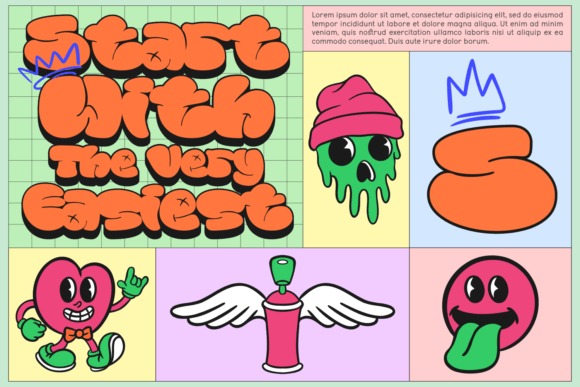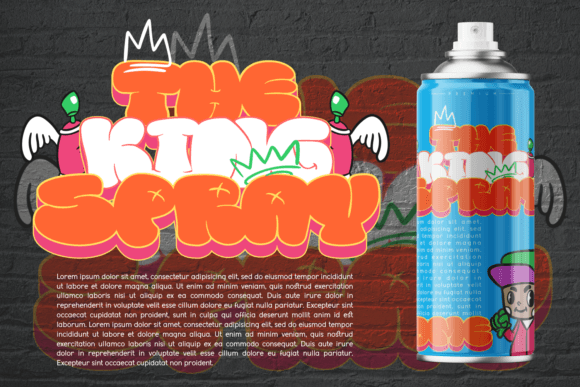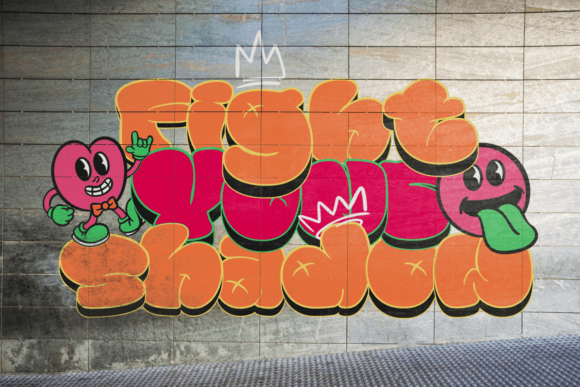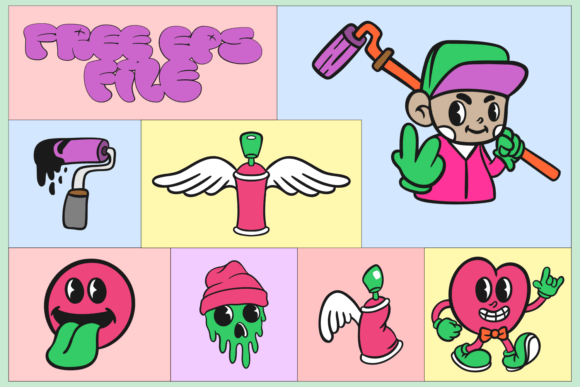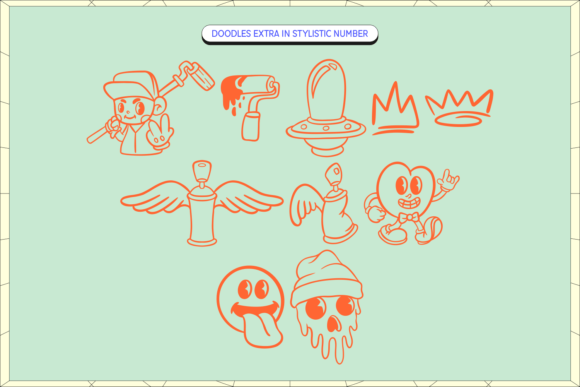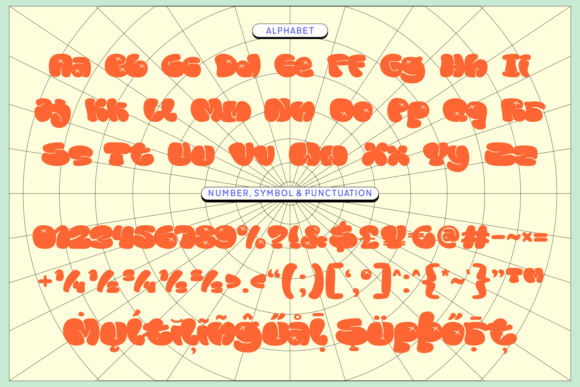
Introduction to Mighty Rebel Font
Mighty Rebel is a funky, cool display font.
Its urban and groovy vibe itโs perfect for creating unique, trendy designs Add it confidently to your creative ideas and you will be amazed by the outcome generated.
Key Features of Mighty Rebel Font